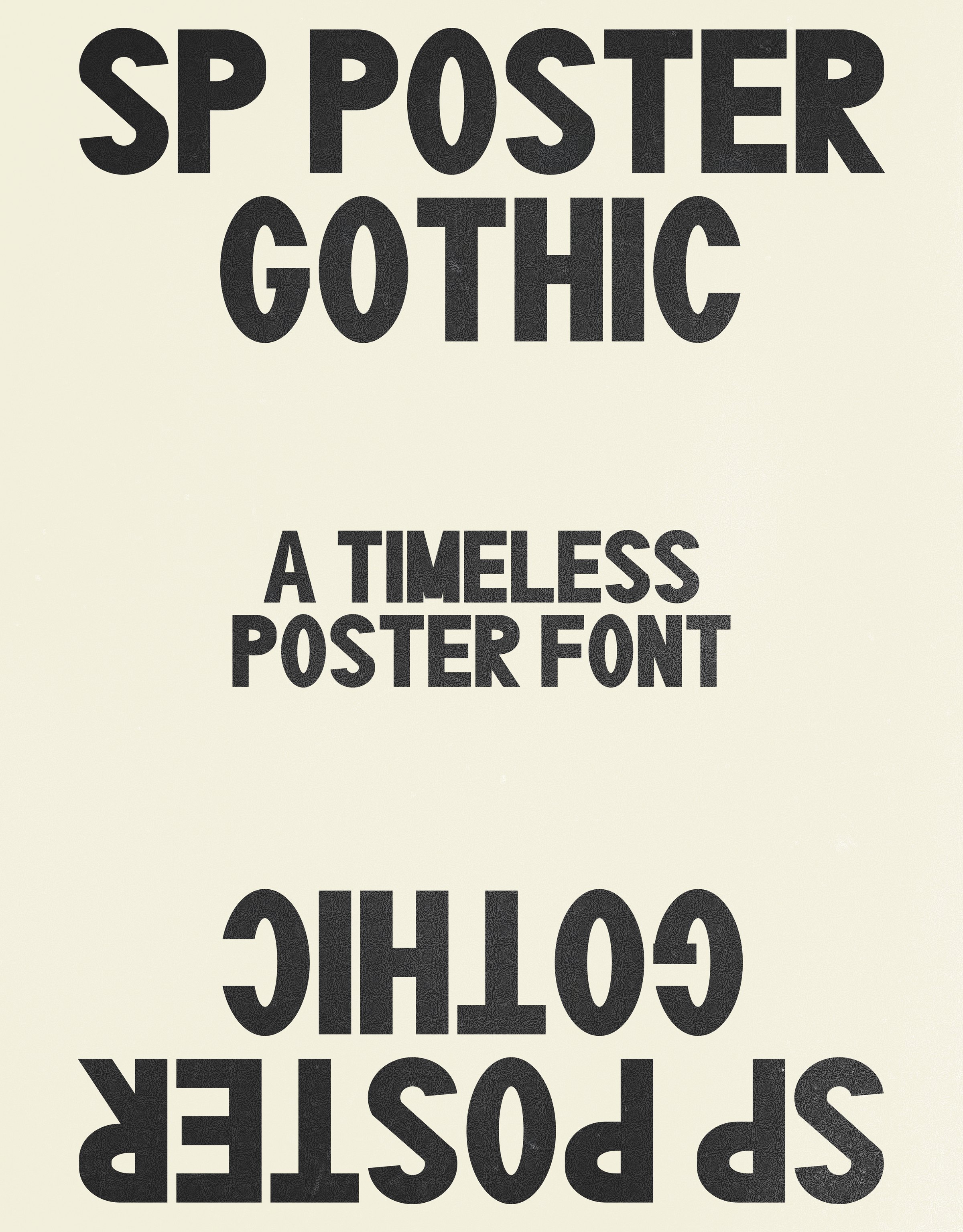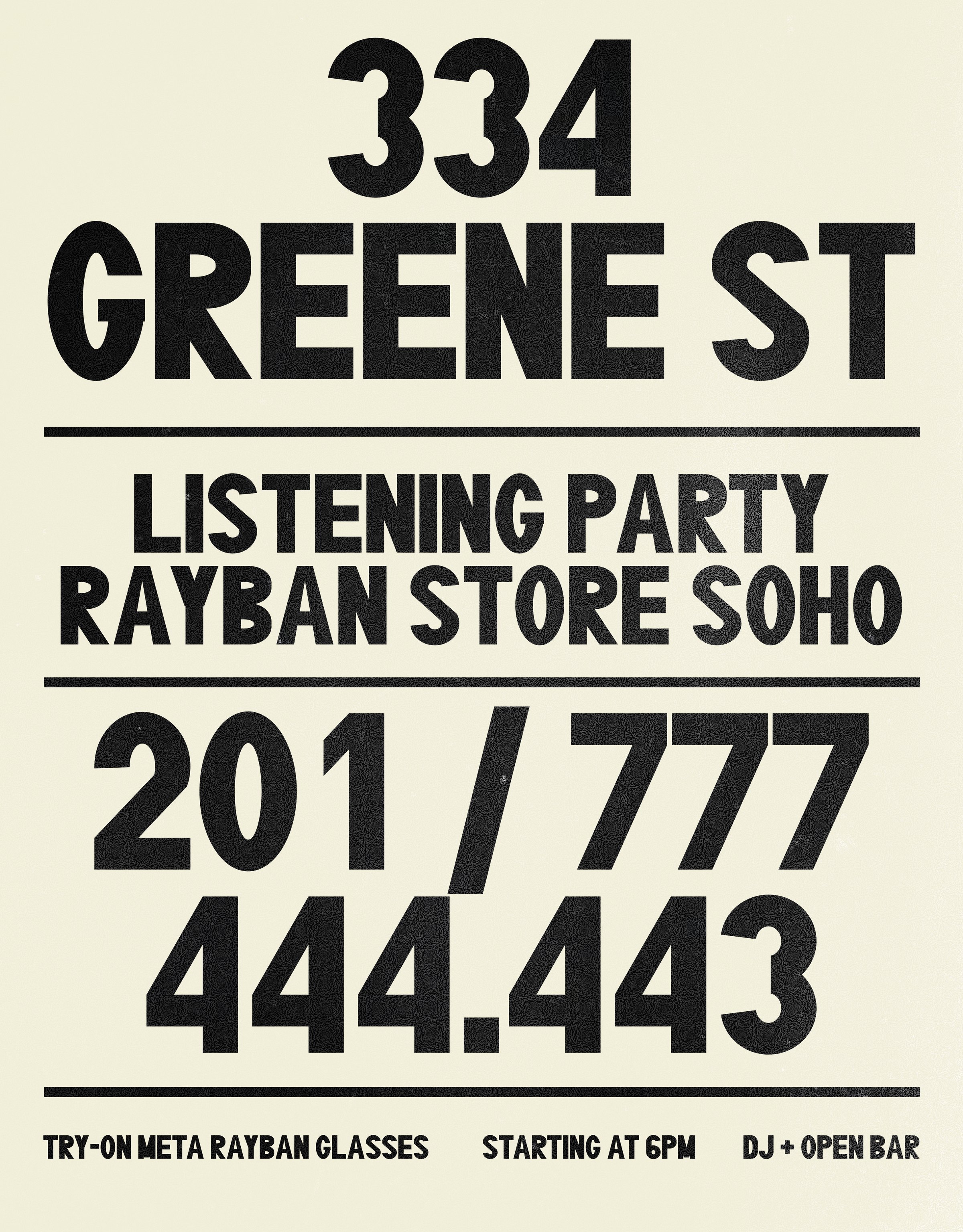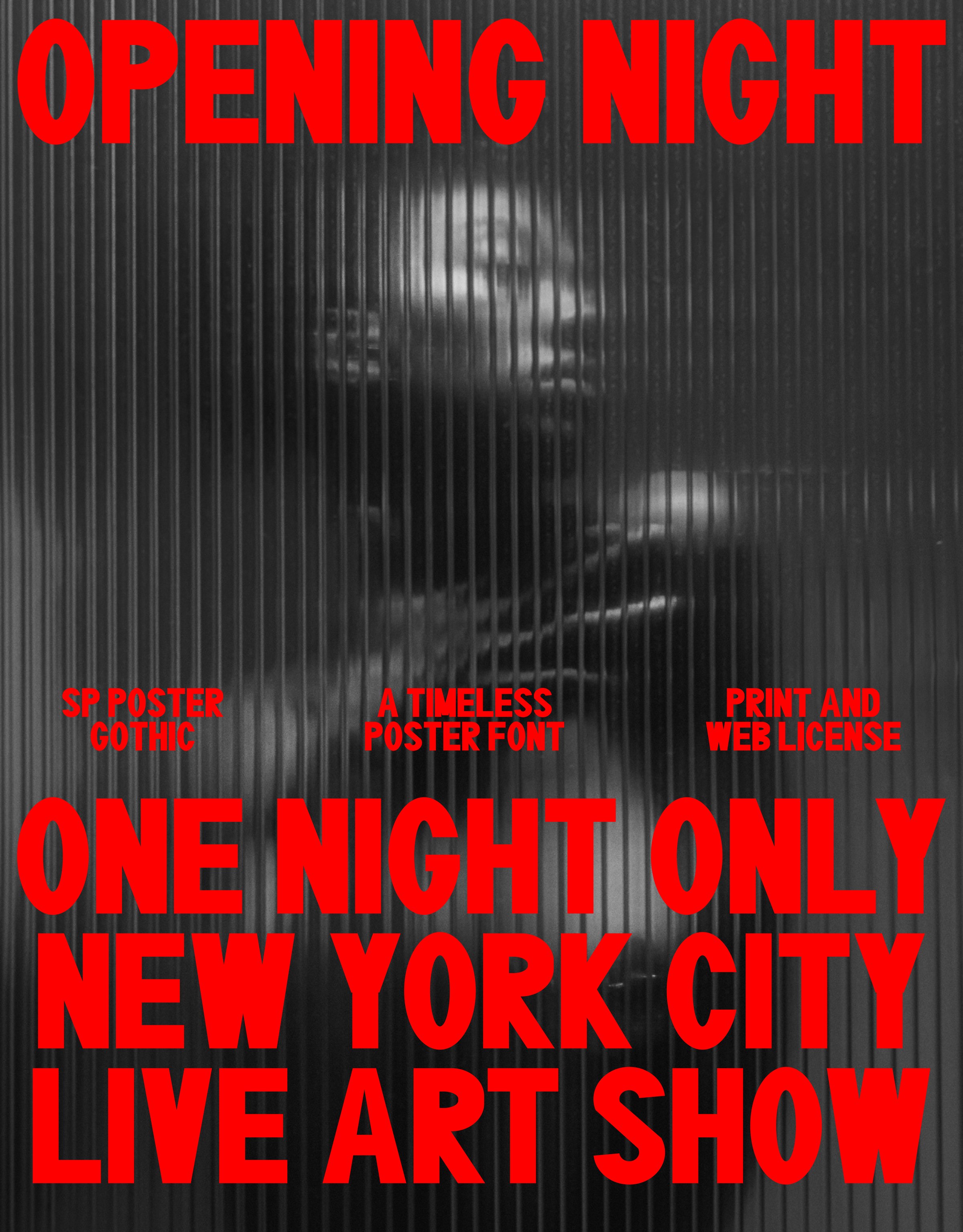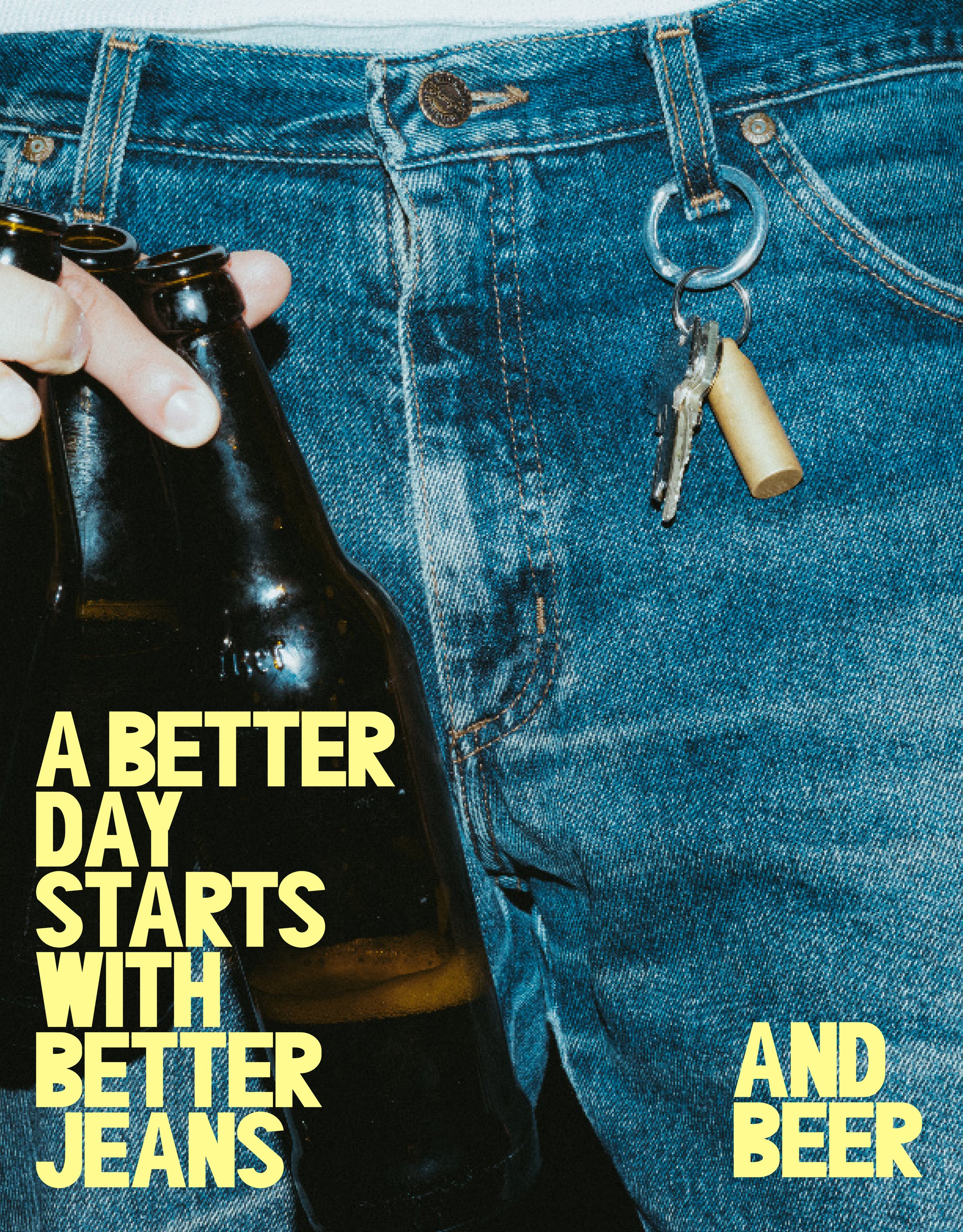
SP Poster Gothic
Heavy condensed grotesque with near-monoline strokes and very tight spacing, made to be set large.
SP POSTER
GOTHIC
One heavy condensed grotesque built for the top of a poster. Tall, tight and all caps, with side bearings cut close so a line of it locks into a single solid block. The figures share one width, so dates, times and prices line up without adjusting, and lowercase keys set capitals, so it types straight in.
Heavy condensed grotesque with near-monoline strokes and very tight spacing, made to be set large.